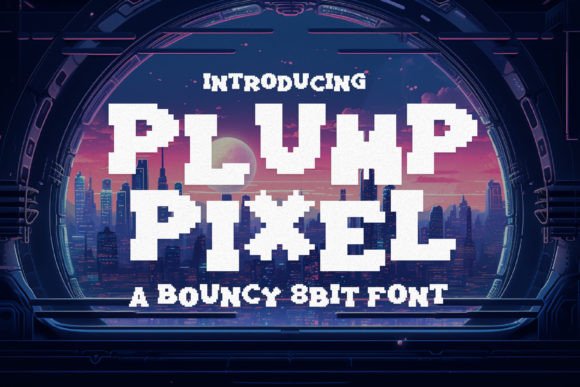
Welcome to the enchanting realm of Plump Pixel, the ultimate font for gamers seeking an extraordinary and immersive experience. Created by the talented team at HipFonts, this bouncy 8-bit pixel video game font is here to inject an explosion of joy and playfulness into every character, captivating your senses and igniting your creativity.
Prepare to be charmed by the meticulously crafted letters of Plump Pixel, each one embodying a chubby and adorable appeal that will tug at your heartstrings. As you type, your words come alive with a vibrant energy, bouncing and dancing across the screen. It's as if your text has found its own rhythm, creating an engaging and immersive experience that transports you back to the golden age of classic arcade games.
Plump Pixel is more than just a font; it's a whimsical journey that merges the retro nostalgia of crisp pixels with a contemporary twist. The fusion of these elements creates a truly extraordinary font that elevates any gaming or design project to new heights. Whether you're designing a logo, creating game art, or even crafting an eye-catching social media post, Plump Pixel will bring your vision to life with its unique and captivating charm.
Immerse yourself in the enchanting world of Plump Pixel and let your creativity take flight. With its undeniable charm and nostalgic appeal, this font is perfect for capturing the attention of gamers and design enthusiasts alike. Stand out from the crowd and make a statement with a font that is as playful as it is professional.
But the adventure doesn't stop there. Plump Pixel invites you to join a captivating odyssey through a world where pixels reign supreme. Let your text embark on a whimsical journey, guiding your audience through a mesmerizing landscape of creativity and imagination.
So why wait? Dive into the delightful world of Plump Pixel and let your words bounce and dance with an irresistible charm. Let your creativity soar and embrace the magic that this font brings to your gaming and design projects. With Plump Pixel by your side, your creations will be infused with a joyous energy that will captivate and inspire.